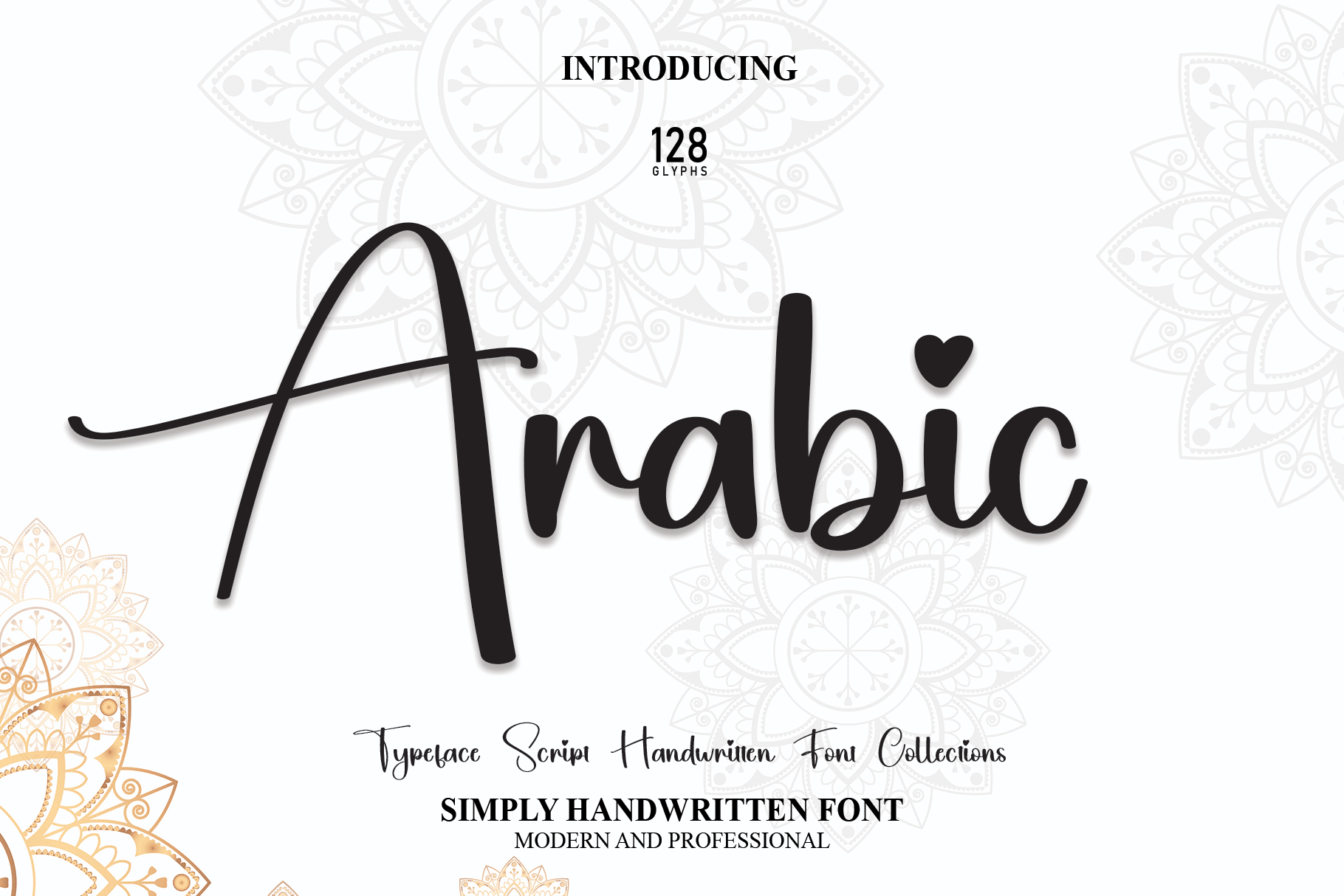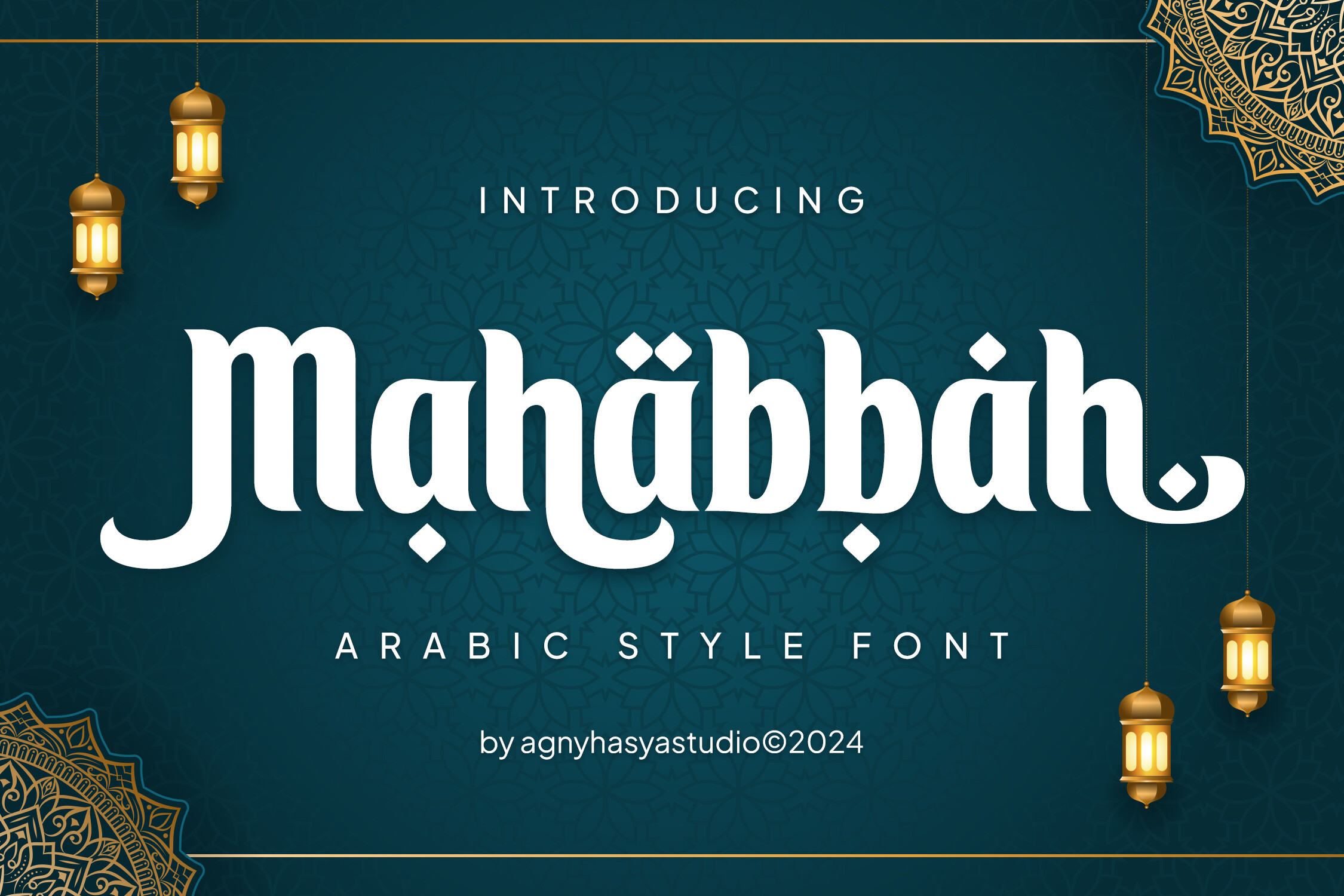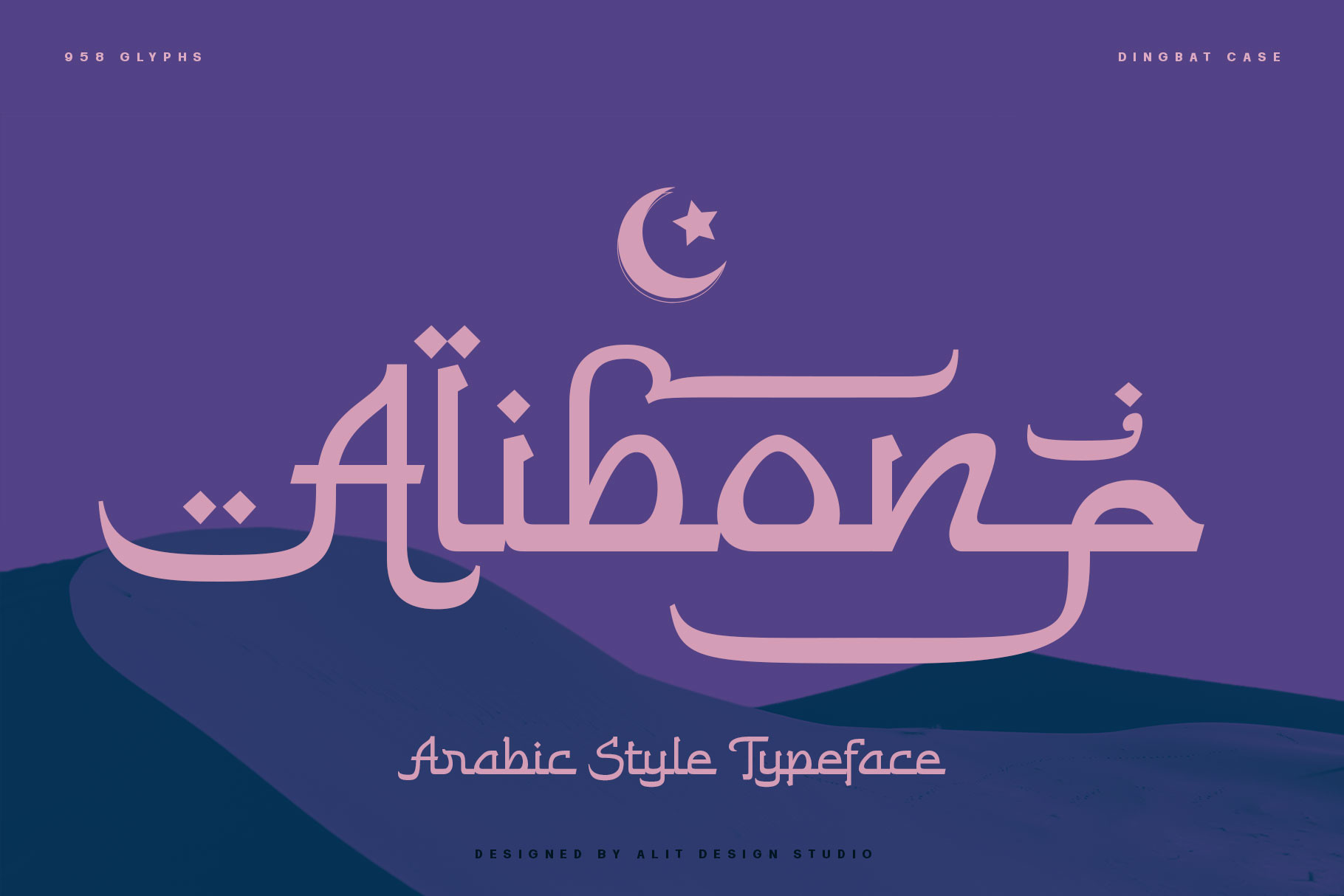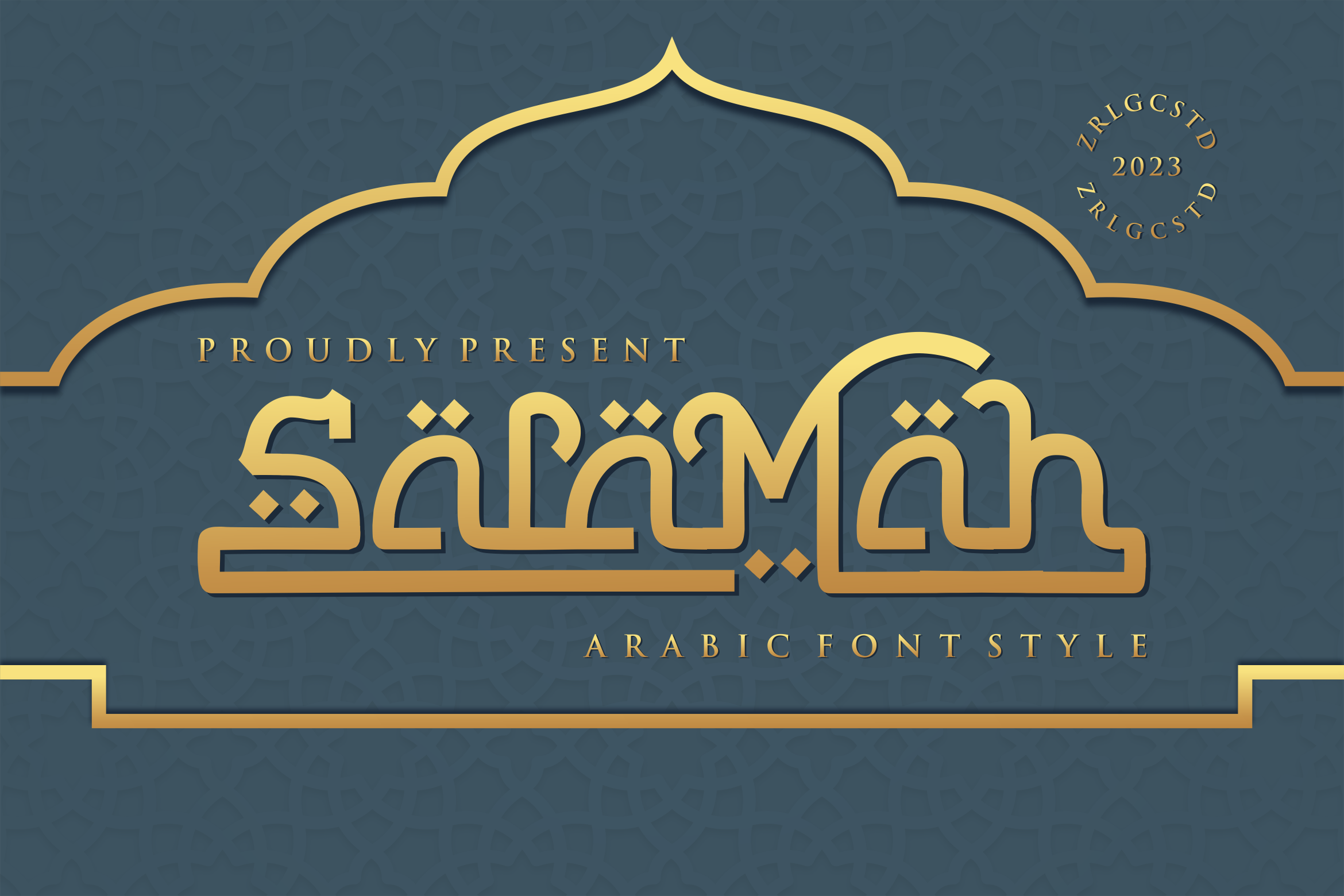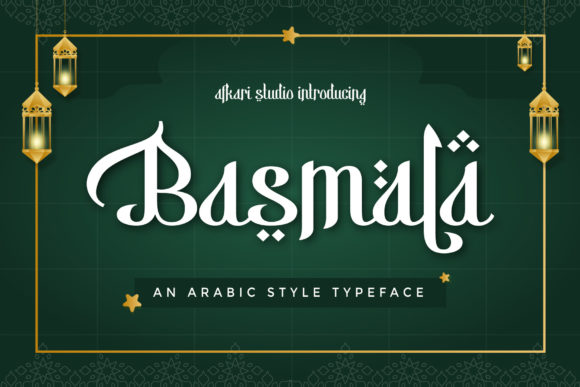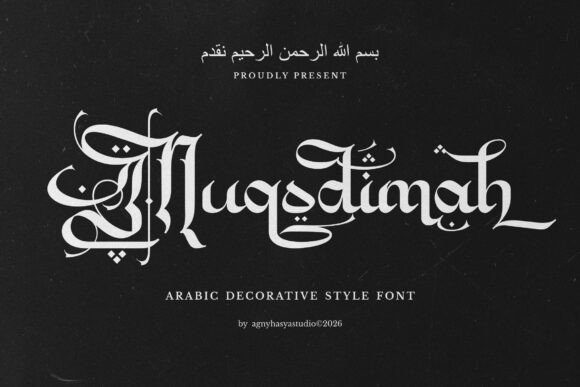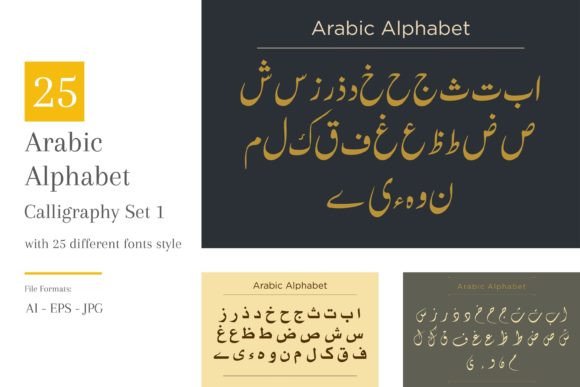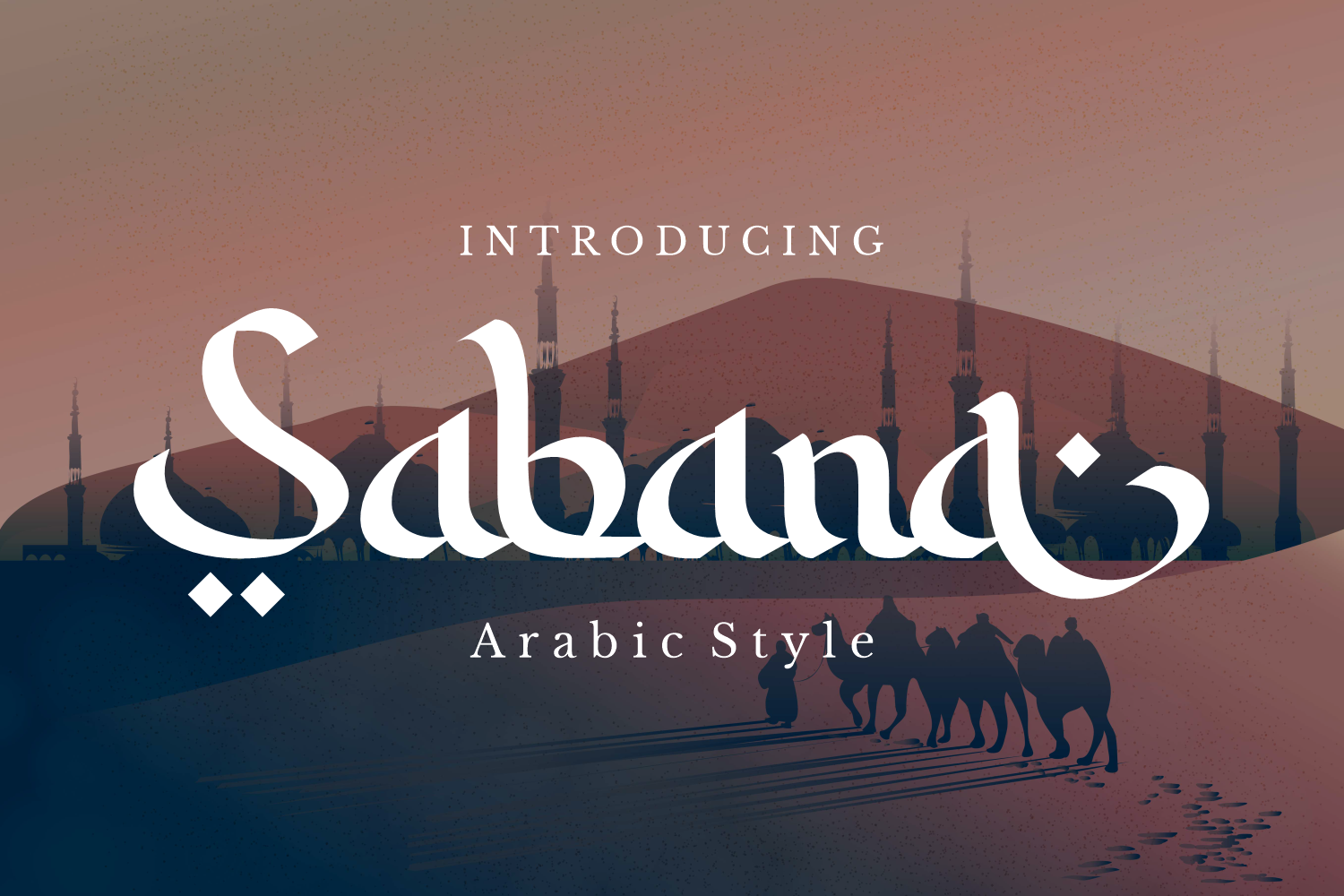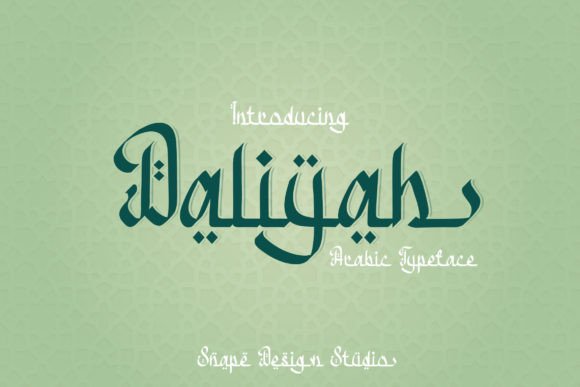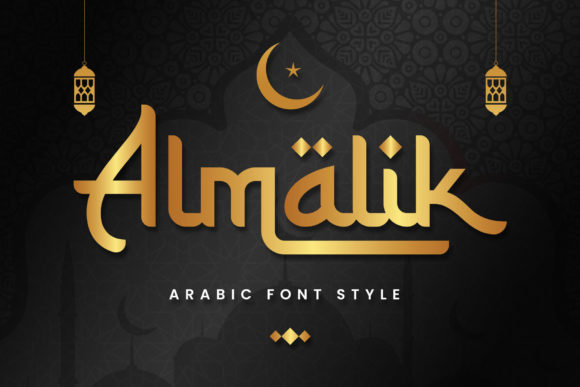
Discover 19 trending Arabic style fonts perfect for eye-catching Canva designs. This curated selection highlights free and paid options suitable for commercial use, easy integration, and versatile branding, with direct download links and tips to ensure copyright safety for your next creative project.
Why Arabic Style Fonts Matter for Canva Designers
Arabic style fonts bring an unmistakable flair to modern design projects—combining flowing, ornate curves with bold, geometric forms. For designers, creators, small business owners, and bloggers who want culturally inspired branding, these fonts offer an easy path to uniqueness on Canva. Whether you’re producing social media graphics, Etsy product templates, or event invitations, choosing the right Arabic inspired font can instantly elevate your work above the mainstream. Moreover, many of these fonts are optimized for global platforms, ensuring copyright compliance and seamless usability for both English and international audiences. With a mix of free and premium resources available, finding that perfect look—be it elegant, festive, or minimal—has never been easier. Browse the full collection (26 Essential Clean Sans Serif Fonts for Designers 2026) to transform your creative projects with authentic Middle Eastern and North African vibes.
Top 5 Arabic Style Fonts for Canva – Comparison Table
| Arabic Font by andikastudio | Modern, Geometric | Branding, Posters, Social Media | Commercial |
| Mahabbah Font | Bold, Artistic | Invitations, Event Flyers, Merch | Commercial |
| Alibon Arabic Font | Elegant, Flowing | Weddings, Blogs, Packaging | Commercial |
| Salamah Font | Handwritten, Playful | Children’s Books, Quotes | Commercial |
| Basmala Font | Traditional Calligraphy | Certificates, Religious Art | Commercial |
19 Trending Arabic Style Fonts for Canva Designs
Arabic Font by andikastudio · Creative Fabrica
This modern, geometric Arabic style font combines clean lines with distinctive script influences. Its strong shapes make it ideal for contemporary branding, bold headers, and eye-catching social media graphics. Use it for logo designs, YouTube channel banners, or standout posters where cultural impact is key.
Mahabbah Font by agnyhasyastudio · Creative Fabrica
Mahabbah features bold, artistic strokes with a balance of elegance and playfulness. The font delivers a unique presence for event invitations, greeting cards, or anniversary posters. Its ornate letterforms work particularly well for festive banners and culturally themed printables.
Alibon Arabic Font by Alit Design · Creative Fabrica
Alibon Arabic Font exudes sophistication with its elegant and flowing calligraphic style. It’s perfect for wedding invitations, beauty product packaging, or chic blog headers. The fluid curves bring an upscale yet approachable feel to branding or editorial layouts.
Salamah Font by zerologicstudio · Creative Fabrica
Salamah brings a laid-back, handwritten vibe that is both approachable and artistic. Suited for children’s books, motivational quotes, or playful product packaging, this font stands out on colorful backdrops. It’s excellent for designers aiming for a warm, friendly look on their Canva projects.
Basmala Font by afkaristudio · Creative Fabrica
Basmala delivers authentic Middle Eastern charm through its traditional calligraphy. This font is ideal for religious artwork, ceremonial certificates, and cultural event posters. If your design calls for heritage and authenticity, Basmala is a reliable choice.
Muqodimah Font by agnyhasyastudio · Creative Fabrica
Muqodimah font delivers a contemporary twist on classic Arabic calligraphy. With a harmonious blend of modern and traditional elements, it’s well-suited for restaurant menus, business cards with a multicultural theme, or standout editorial layouts.
Arabic Calligraphy Fonts Style Set Graphic by shahsoft · Creative Fabrica
This style set offers a variety of Arabic calligraphic fonts—making it a versatile toolkit for signage, branding, and educational materials. The set provides flexibility and authenticity, making it a top pick for larger projects that require multiple style options.
Sabana Font by motokiwo · Creative Fabrica
Sabana blends Arabic script influences with a minimalistic, sans-serif base, resulting in a font that is both stylish and readable. It’s great for digital ads, tech business branding, and modern infographics on Canva.
Daliyah Font by snapedsgn · Creative Fabrica
Daliyah features high-contrast, ornamental letterforms that channel energy and movement. This font is perfect for fashion lookbooks, product launches, or vibrant social banners where you want to grab attention with flair.
Almalik Font by Arterfak Project · Creative Fabrica
Almalik’s regal forms and calligraphic flow exude prestige. Suited for awards, luxury branding, or high-end event announcements, it brings an unmistakable Middle Eastern opulence to print and digital products alike.